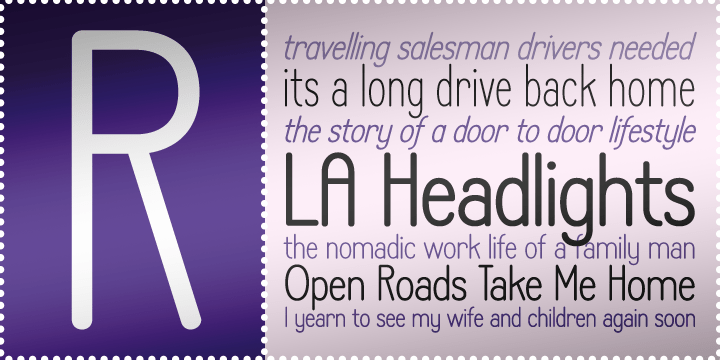
LA Headlights BTN
LA Headlights BTN is a versatile sans serif family that sits comfortably between display and text-minded design. Its clean, lighter-handed character gives it a polished but approachable feel, making it useful for headlines, editorial layouts, branding, packaging, signage, advertising, and contemporary business graphics. The family balances readability with personality, allowing it to work well in both short display settings and more extended supporting copy. With a broad range of weights, italics, and condensed styles, LA Headlights BTN offers flexible options for designers who need a modern, understated sans with visual range.